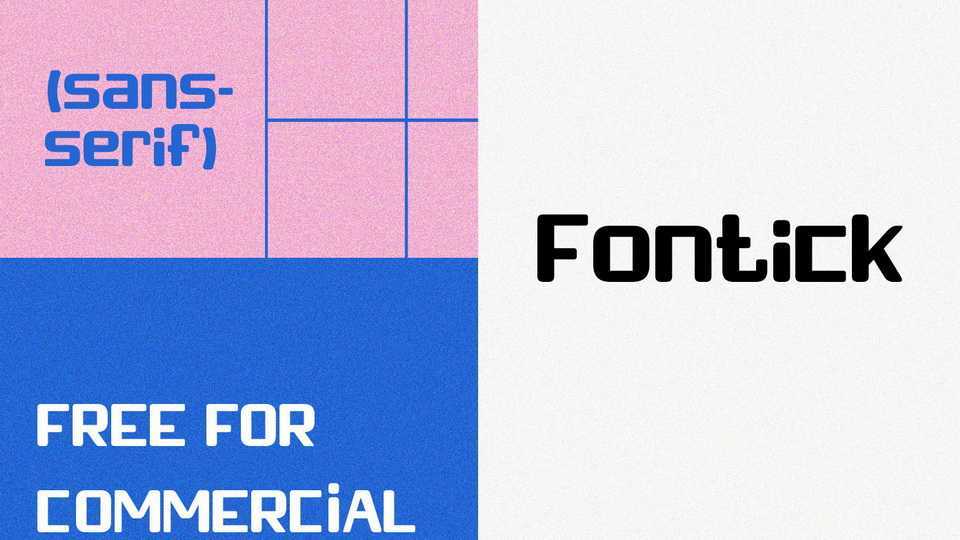
Download Fontick font, a sans serif with multilingual support including English and Russian. Fontick is not perfect for any project.
Designer: Maxim Raikov